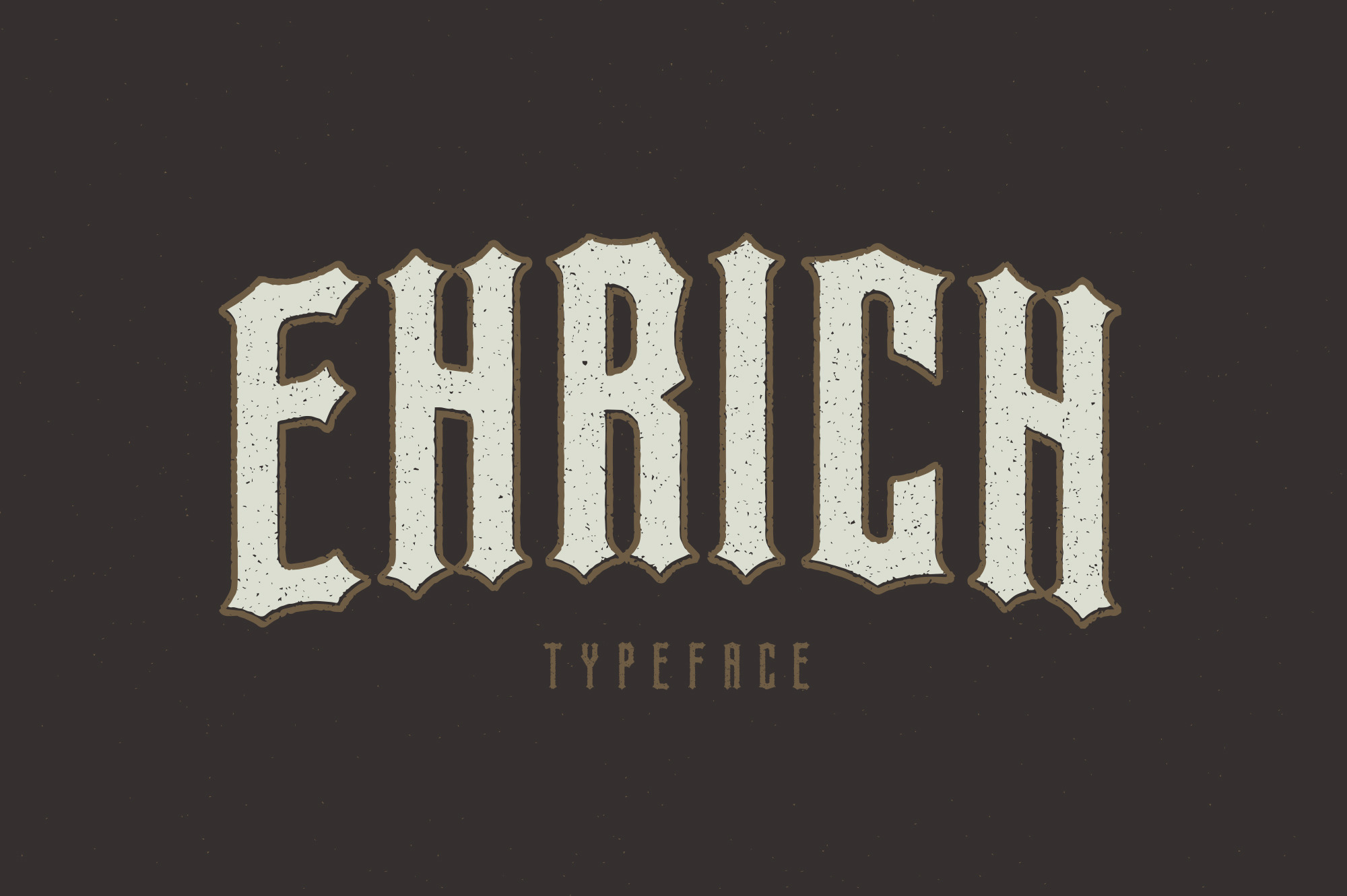
Ehrich Display Typeface
Ehrich is a new display typeface by Jordan Kabalka, inspired by vintage magic shows of the late 1800s / early 1900s. This type is stronger than the nails that hold Houdini's coffin together. Pick it up today and use it on your next poster, beer label, or tombstone.